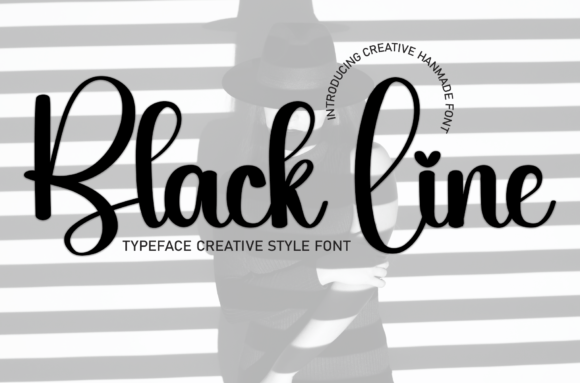
Adding a Personal Touch with Black Line Font
Who hasn’t scribbled out a heartfelt message on a birthday card or handwritten a love letter to their significant other? There’s something special about putting pen to paper and watching our words come to life in a beautiful, handwritten script. For designers, capturing that same personal touch in digital designs can be a challenge – until now.
Enter Black Line Font, a charming and whimsical display font that’s perfect for adding a fun and friendly vibe to any project. Whether you’re creating wedding invitations, birthday cards, or social media graphics, this font is sure to bring a smile to your audience’s faces. With its playful, handwritten feel, Black Line Font is a valuable addition to any designer’s toolkit, offering endless possibilities for creative expression.
Key Features of Black Line Font
- Font Style: Black Line Font is a unique, hand-drawn font with a bold, edgy feel, ideal for creative projects and designs.
- Unique Characteristics: Features a distinctive “hand-drawn” look, with varying line widths and subtle imperfections that give it a unique, human touch.
- Font Weight: Available in multiple weights, including Light, Regular, Medium, Bold, and Black, allowing for flexibility and customization in design projects.
Review of Black Line Font
Overall, I was quite excited to dive into Black Line Font, but unfortunately, it didn’t quite live up to my expectations. That being said, let’s explore what works well and what doesn’t.
- Unique aesthetic: Black Line Font has a distinct, hand-drawn feel that’s sure to stand out in any design project.
- Clean lines: As the name suggests, the font features crisp, clean lines that are perfect for creating a modern, minimalist look.
- Multiple weights: Black Line Font comes in a range of weights, making it easy to find the perfect fit for your design.
- Limited language support: Unfortunately, Black Line Font only supports a limited number of languages, which may be a major drawback for designers working on international projects.
- Not ideal for small text: Due to its unique style, Black Line Font can be difficult to read at small font sizes, which may limit its use in certain applications.
- Not a true font: Black Line Font is actually a font-based on a hand-drawn font, which can make it difficult to use in certain design software.
Overall, while Black Line Font has some great qualities, its limitations hold it back from being a truly versatile and useful font. With some tweaks and improvements, it has the potential to be a top-notch design tool.
The Black Line Font is commonly used in:
– Minimalist designs where simplicity is key
– Editorial and publishing designs for a clean, modern look
– Social media graphics and advertising materials for a bold, eye-catching effect
To get the most out of the Black Line Font, try experimenting with different font sizes, colors, and combinations to create a unique look. You can also pair it with other fonts to create a visually appealing contrast.